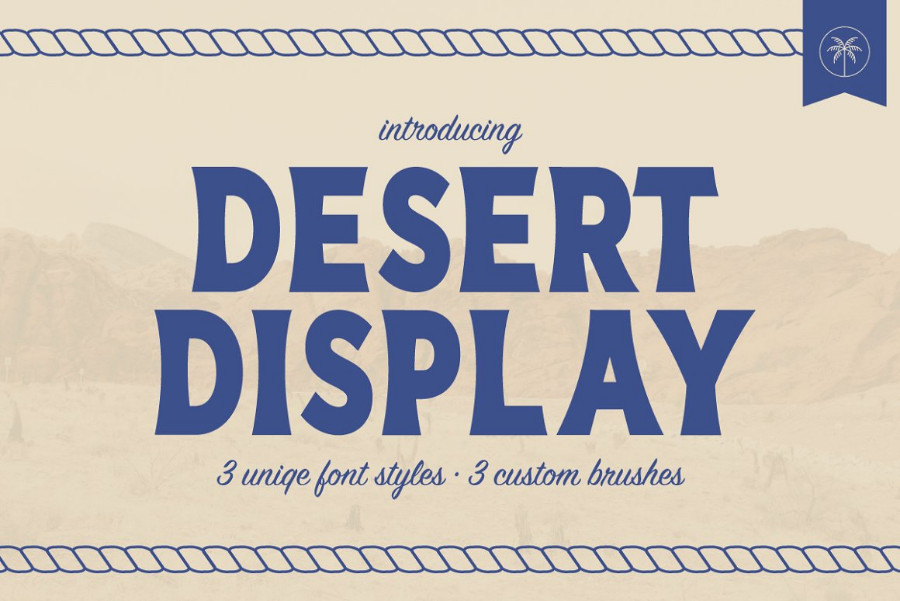
+23 Desert Fonts Ideas
Desert font download desert font free preview download :: Desert font download desert is the perfect font for all your fun designs. Xpointed desert font family was designed by robert schenk, and published by ingrimayne type.
30,000+ best fonts download deserta display font is a sans based font, inspired from famous logos of futuristic style and brands that have very strong characteristics. Sweet_dessert_demo.ttf note of the author hello, your sweet dessert is coming ! 300+ vectors, stock photos & psd files.
Deserta Is A Modern All Caps Typeface Suitable For Your Creative Projects.
The font is free for both personel and commercial usages. The font is created with strong and challenging nuances. Free fonts often have not all characters and.